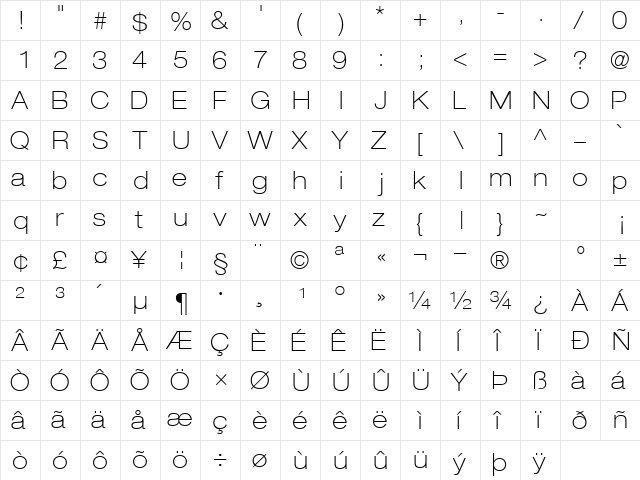
ContextRepriseThinExpSSK Regular
Design Context for ContextRepriseThinExpSSK Typeface
ContextRepriseThinExpSSK takes a measured approach to typography — its balanced proportions and neutral character make it a reliable workhorse for both digital and print work. Its slender proportions lend an understated elegance to any composition.